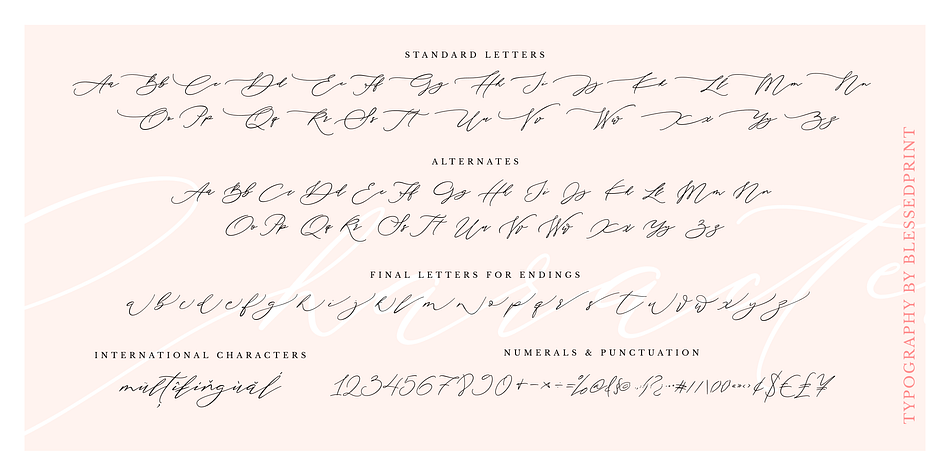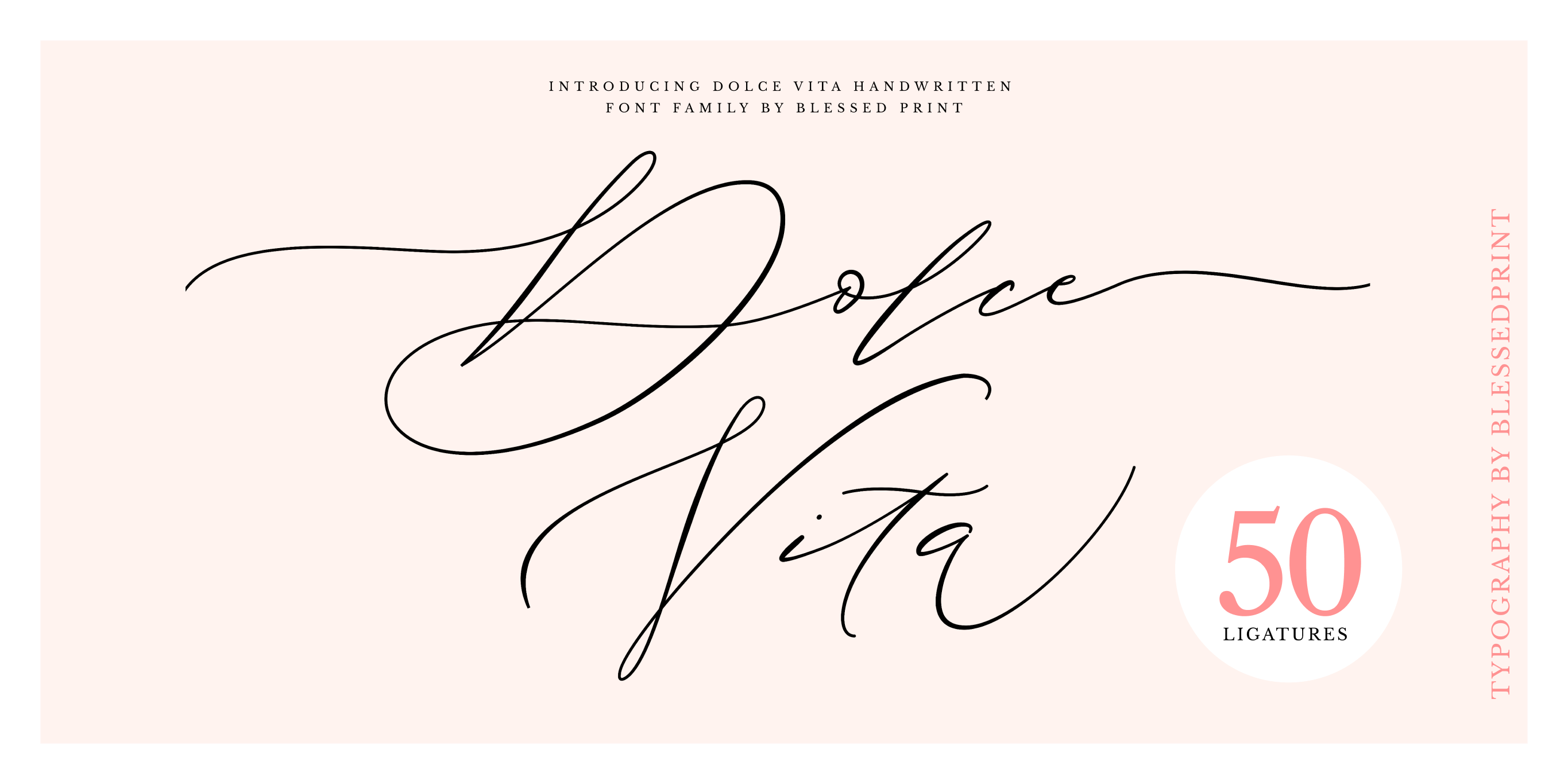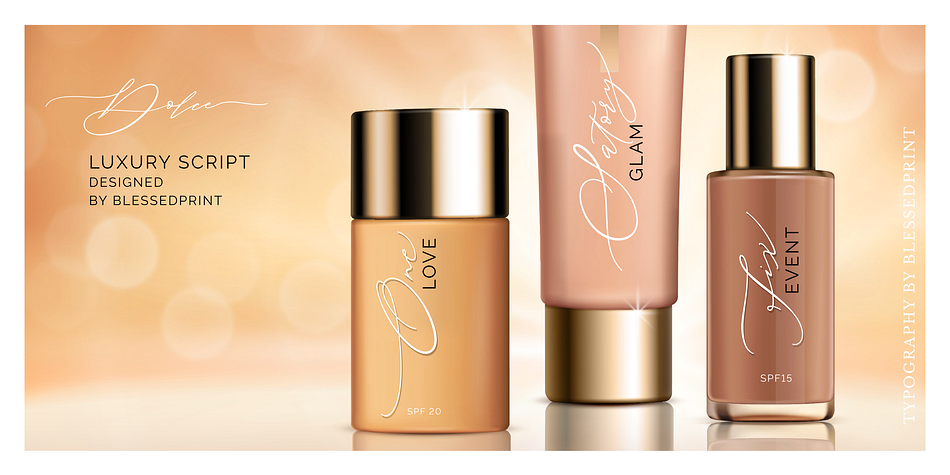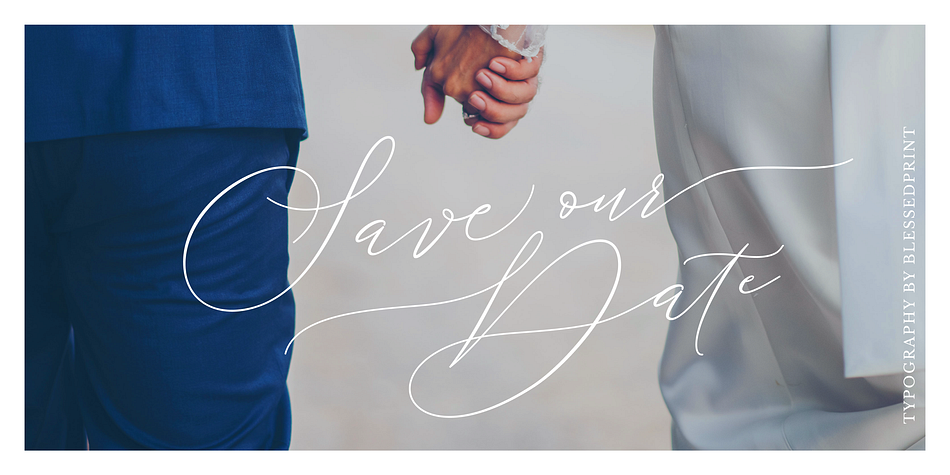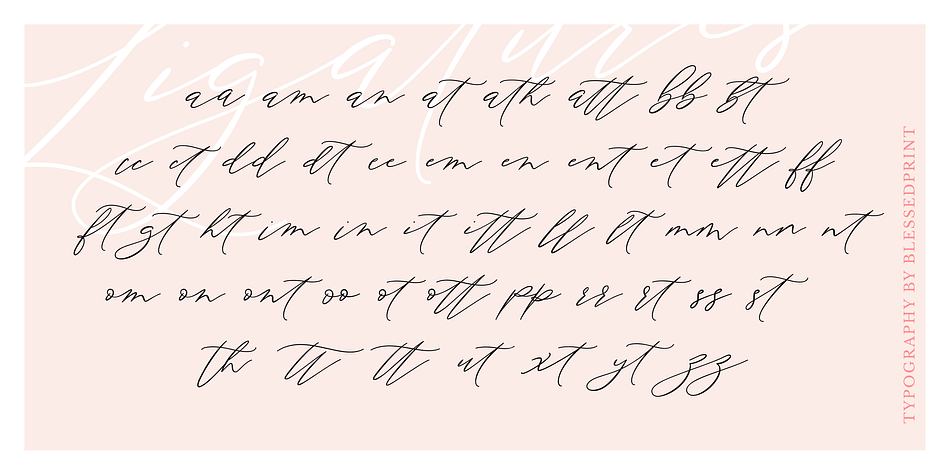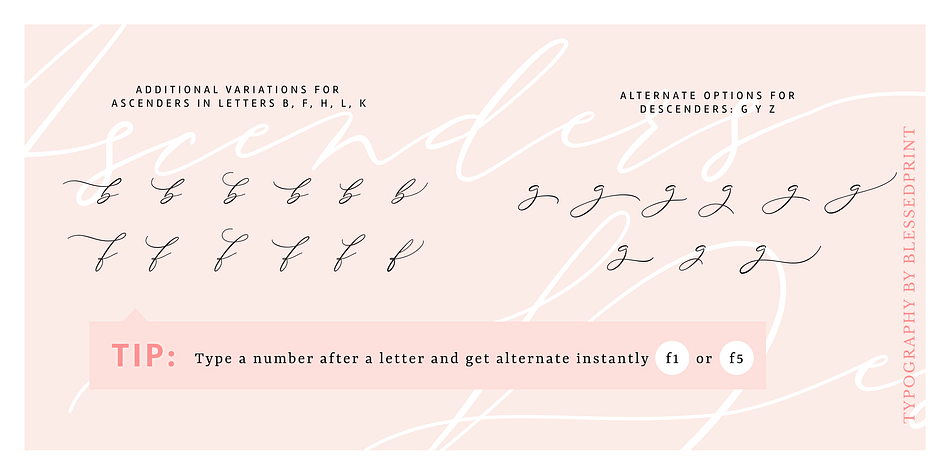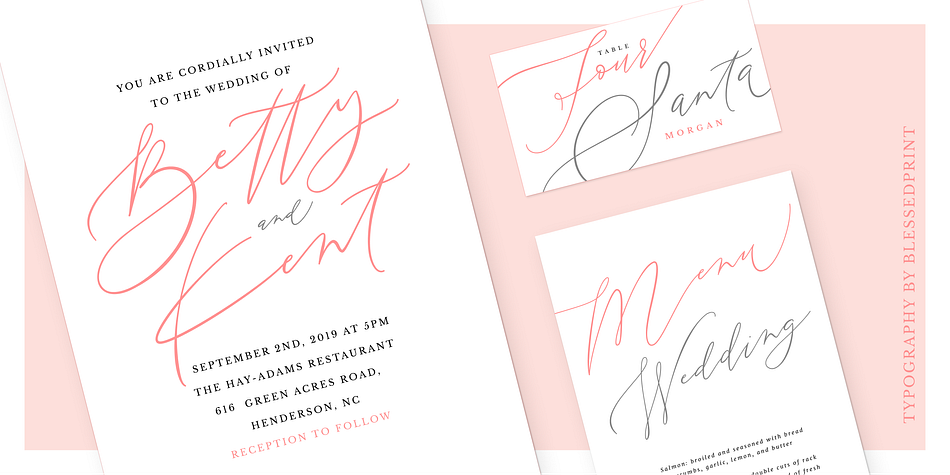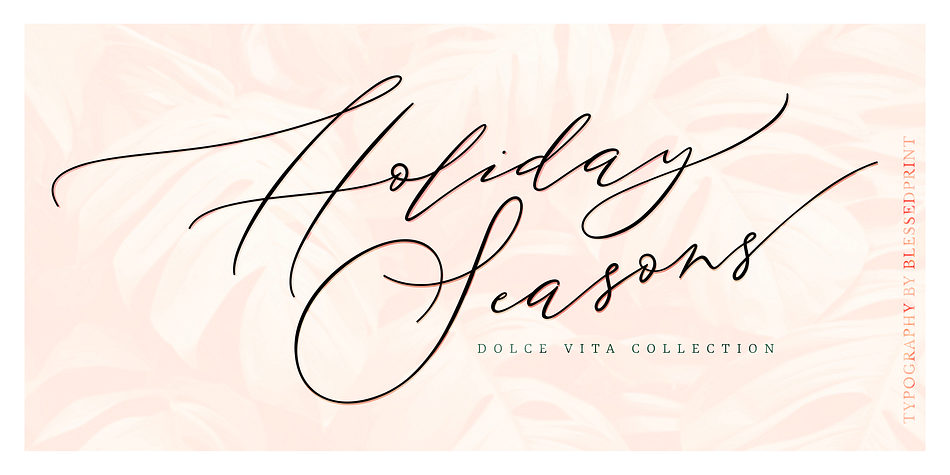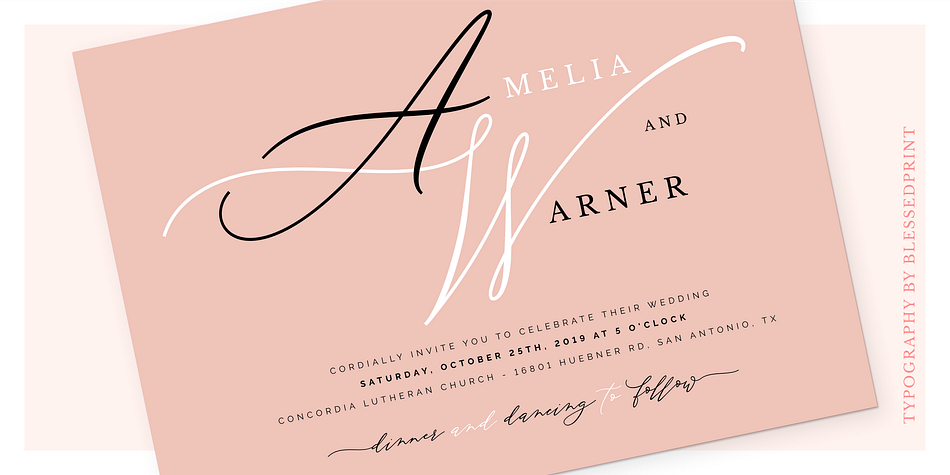
Designed by Dmitrii Mikitenko, DolceVita is a modern calligraphy and script font family. This typeface has four styles and was published by Blessed Prints.
Meet originally handwritten script - Dolce Vita with 9 editable logos (eps, psd). Perfect for wedding invitations, posters, business cards and much more. Dolce Vita includes 50 ligatures to add elegant and unique appearance your sign.
Apply contextual alternates and look how it becomes even better. Each single glyph has it’s own unicode (PUA encoded) so you can copy/paste alternates and don’t worry that you miss something.
DolceVita is so easy to work with. Apply swashes instantly by typing [ and ]. Try here right now :) Each letter has alternates. When you type one after letter you are getting alternate: A1, a1, B1, b1, etc… If you type a2, b2, b3… you are getting perfect glyph for ending. Just try to type Vita2. It is very easy and fun. Finally play with ascenders/descenders y3, y4, y5… same for g, z, b, f, l, h, k.
Multilingual support: English, Dutch, Spanish, Czech, Danish, French, Italian, Norwegian Nynorsk, Polish, Portuguese, Romanian, Slovak, Swedish and more…